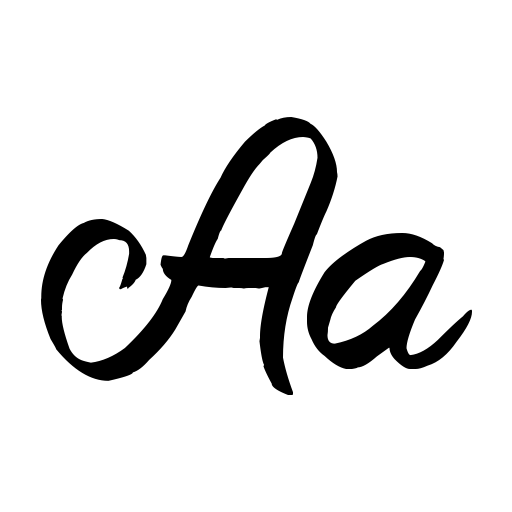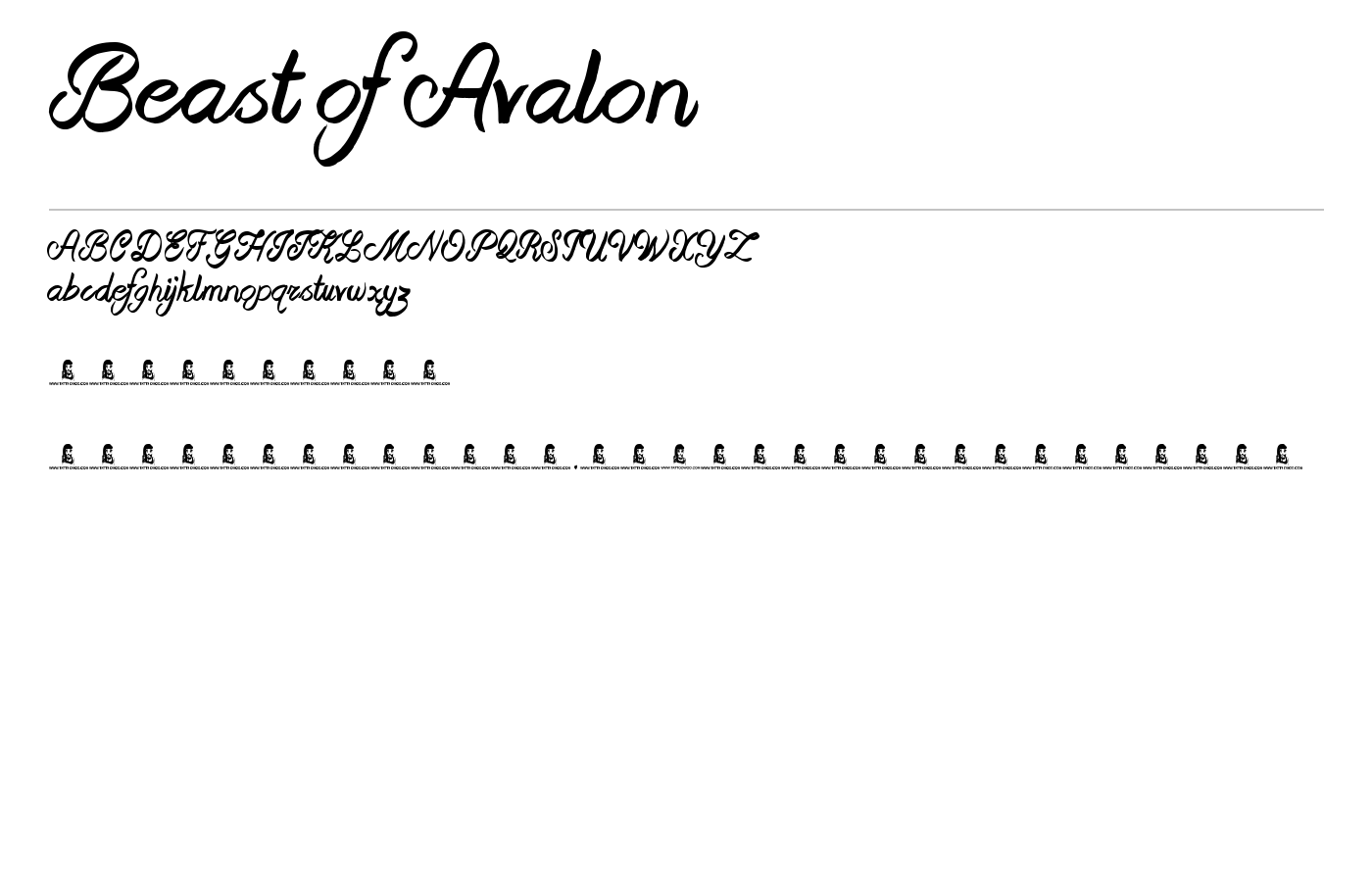
Beast of Avalon is an elegant script font featuring smooth, flowing lines and a moderate contrast in stroke weight, giving it a graceful, handwritten feel. With its distinctive connected letterforms and stylized curves, it works beautifully for invitations, branding, and any design that seeks a refined, classic yet approachable touch. This font shines in creative projects that want to convey sophistication with a personal, artistic flair.
Beast of Avalon Font
About Beast of Avalon Font
| Font family | Beast of Avalon Font |
| Designer | Jonathan S. Harris |